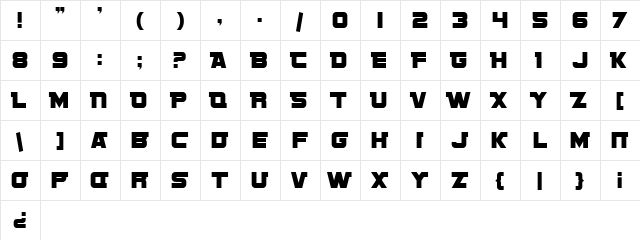
SF Sports Night NS AltUpright Regular
Design Context for SF Sports Night NS AltUpright Typeface
SF Sports Night NS AltUpright has the bold swagger of sports branding: strong, assertive letterforms designed to dominate headlines and jerseys alike.
A natural choice for gym brands, fantasy sports, jersey lettering, and action-driven headlines.
Font Pairing: Use alongside a condensed or geometric sans for supporting copy — keep the pairing bold, functional, and free of ornament.
Pro Tip: Use SF Sports Night NS AltUpright in all-caps headlines where its athletic energy can fully express itself. Pair with a solid, simple sans for supporting text.